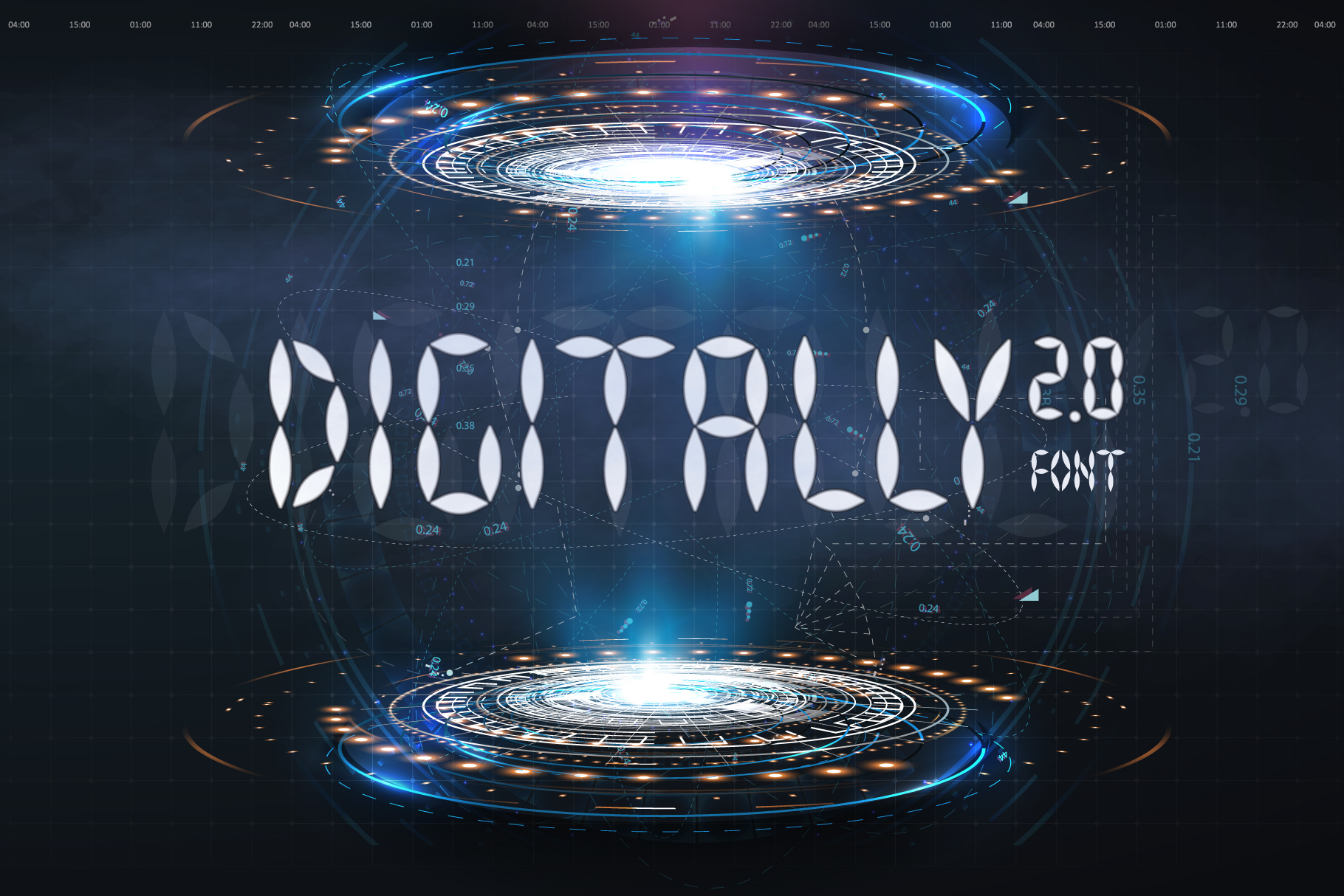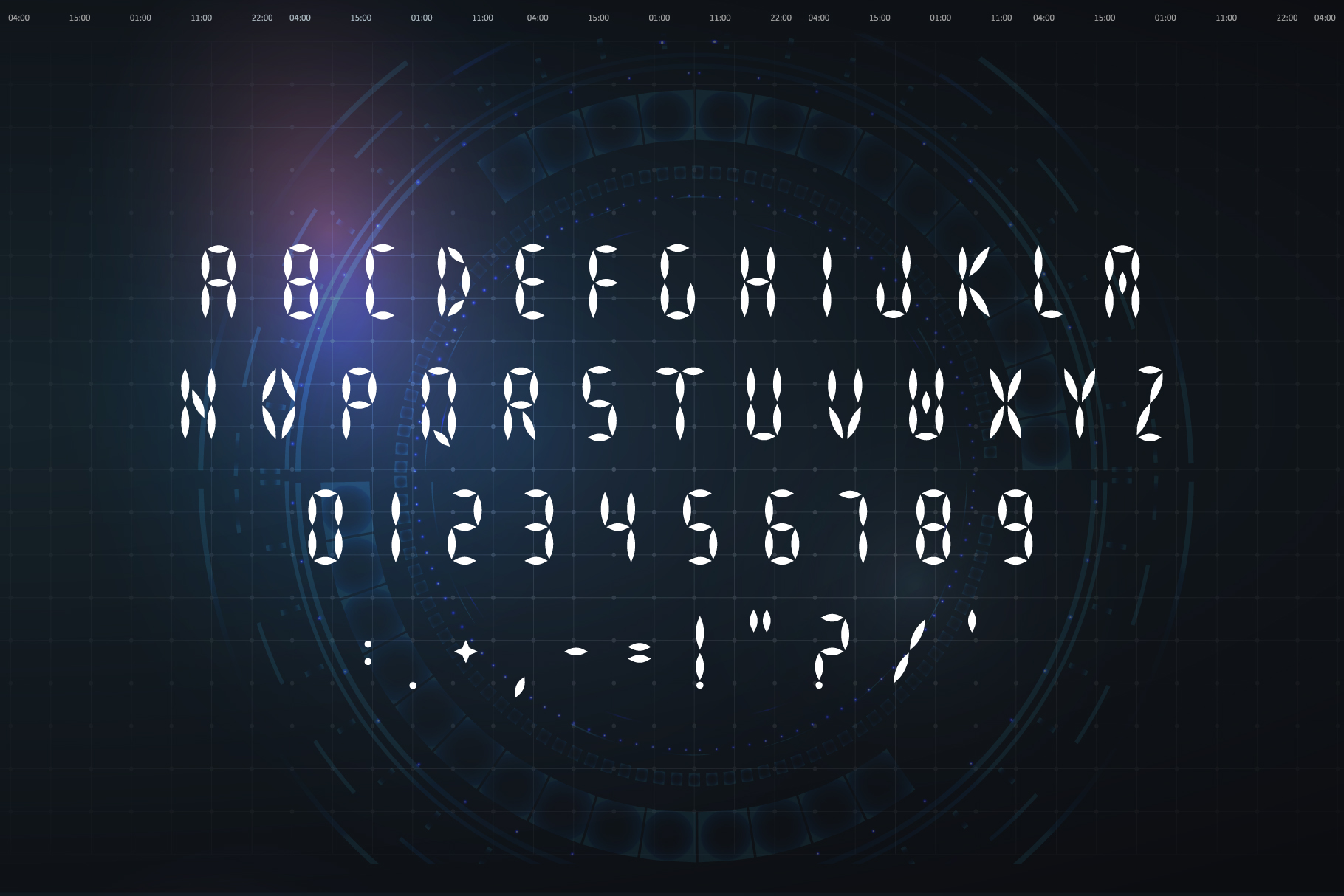
This font looks fresh and innovative, especially In comparison to same fonts for pixel screens.
The pointed edges give the font lightness and freshness, while maintaining a digitalized context. Ideal for medical device interfaces, electronic information screens and sports devices.
It combines verified kerning and is perfectly readable with various characters spacing. Try it, this experience will be enjoyable